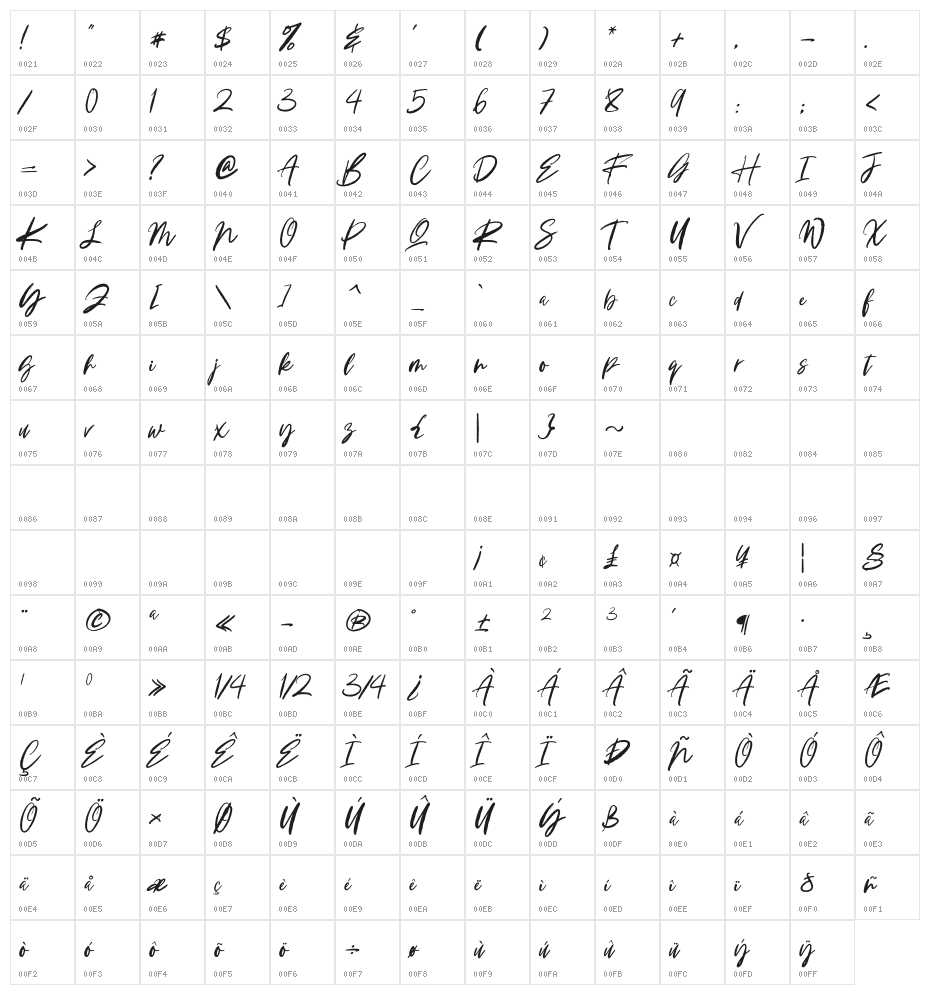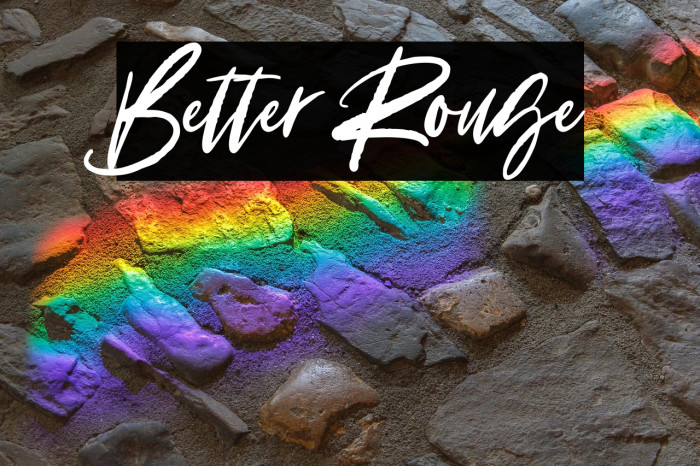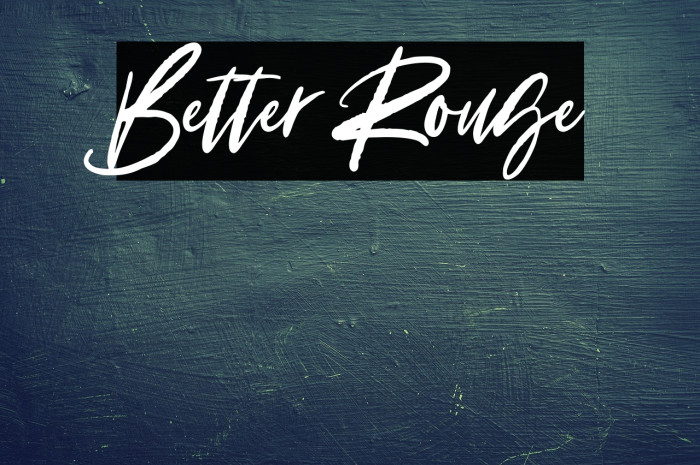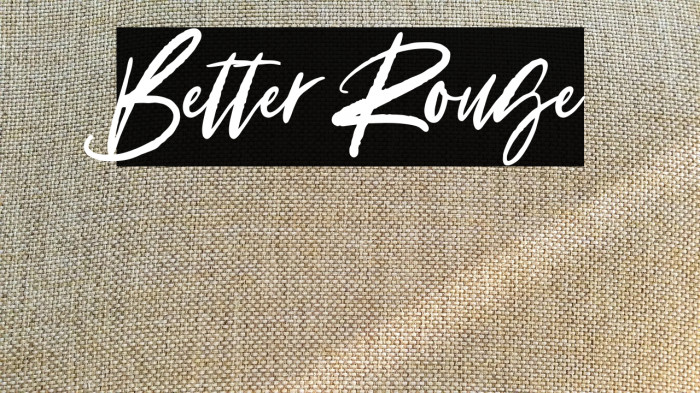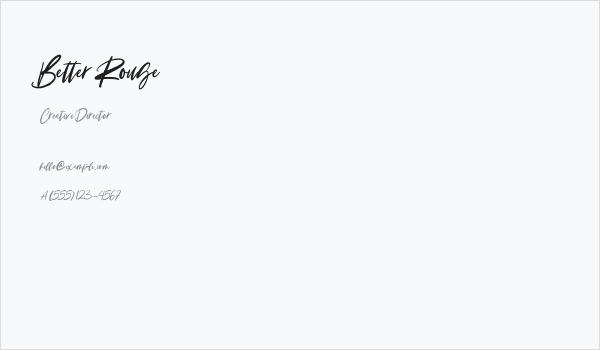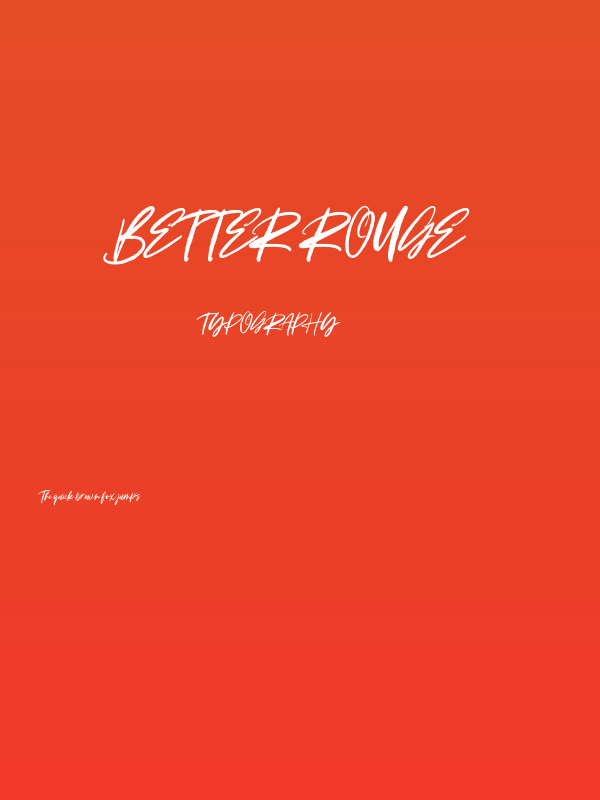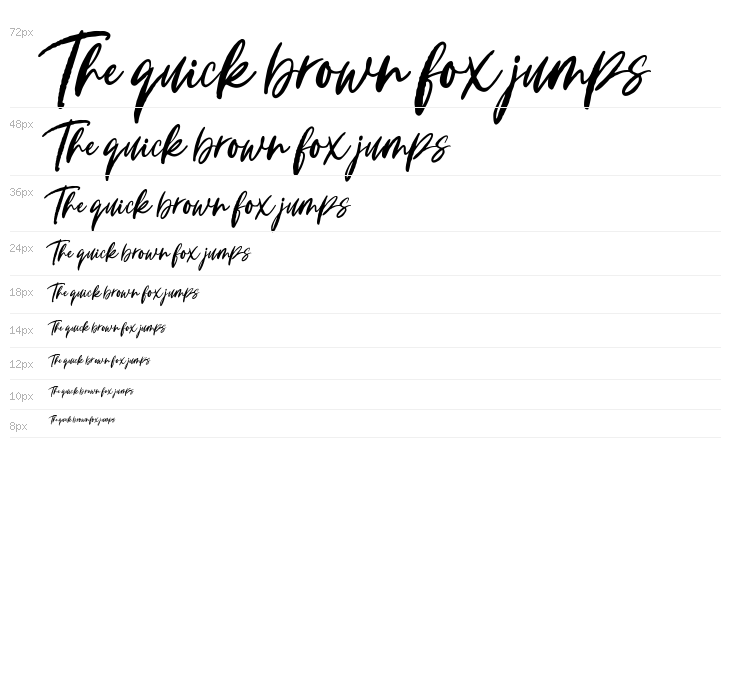
Better Rouge Font
Better Rouge Description
This font features a dynamic and energetic script style, characterized by fluid, sweeping strokes that convey a sense of movement and elegance. The letters are connected in a cursive manner, with varying stroke widths that add a lively and personal touch. The uppercase letters are bold and prominent, while the lowercase letters maintain a consistent flow, enhancing readability. The numerals and special characters are crafted with the same attention to detail, ensuring a cohesive look across all text elements. This font's handwritten appearance makes it ideal for projects that require a personal or artistic flair.
| Proposed Projects | Ideal for wedding invitations, greeting cards, branding, and artistic projects that require a personal touch. |